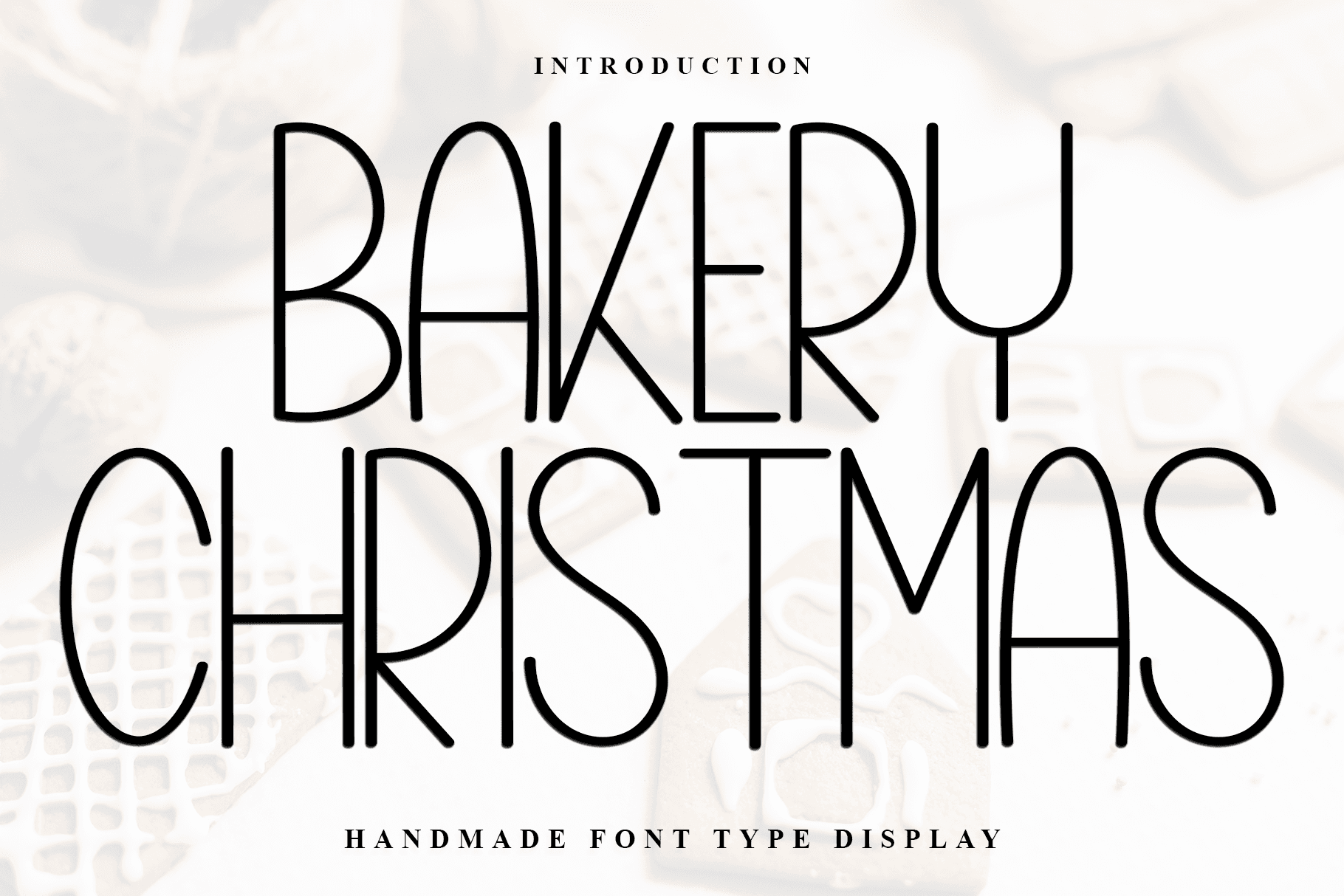
Bakery Christmas Font: ๐ Check out Bakery Christmas Font now! Explore this ๐ sans serif fonts and claim your ๐ free download here. Let's start crafting together! ๐ Bakery Christmas is a casual and creative font that exudes warmth and friendliness...